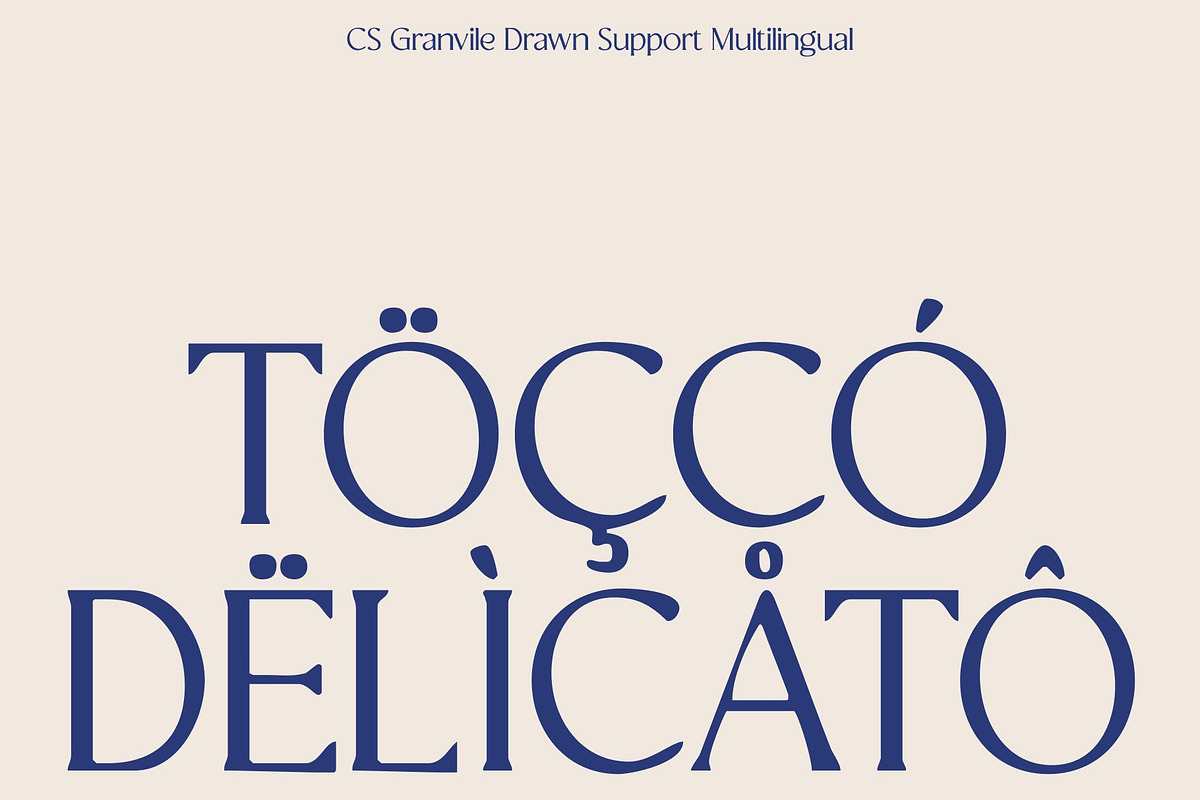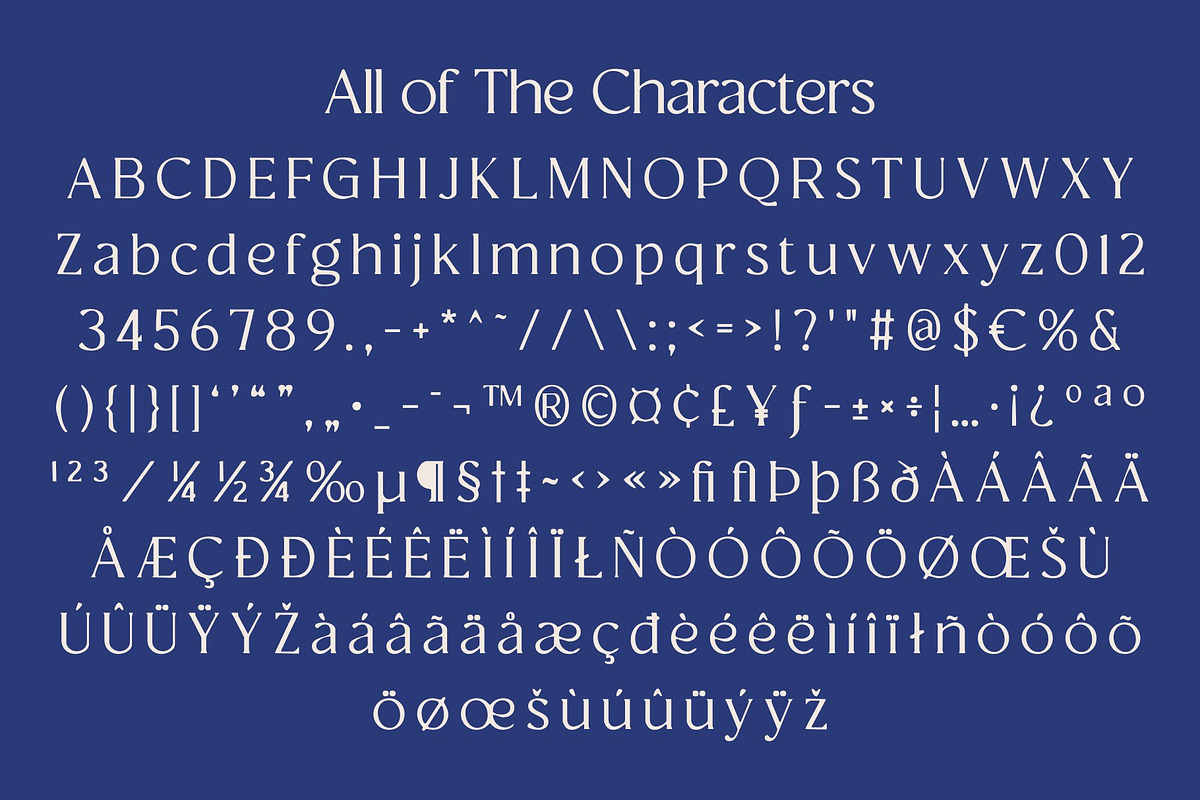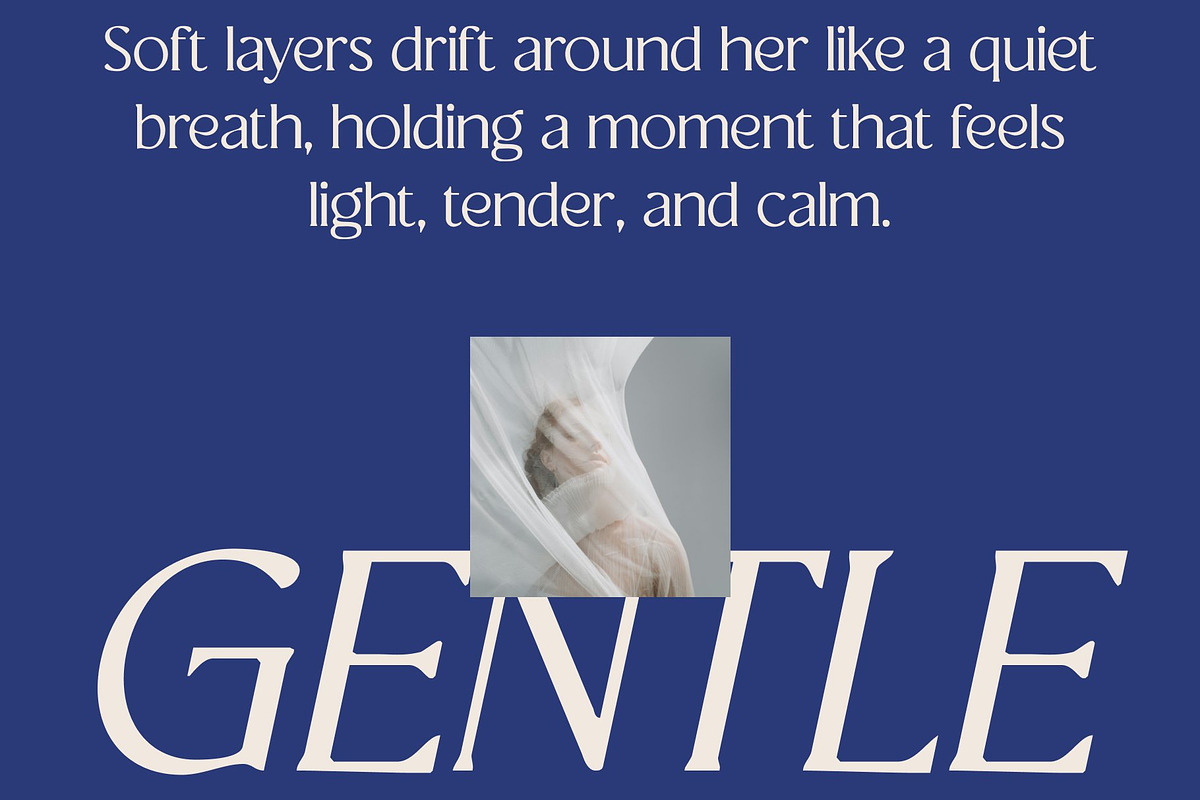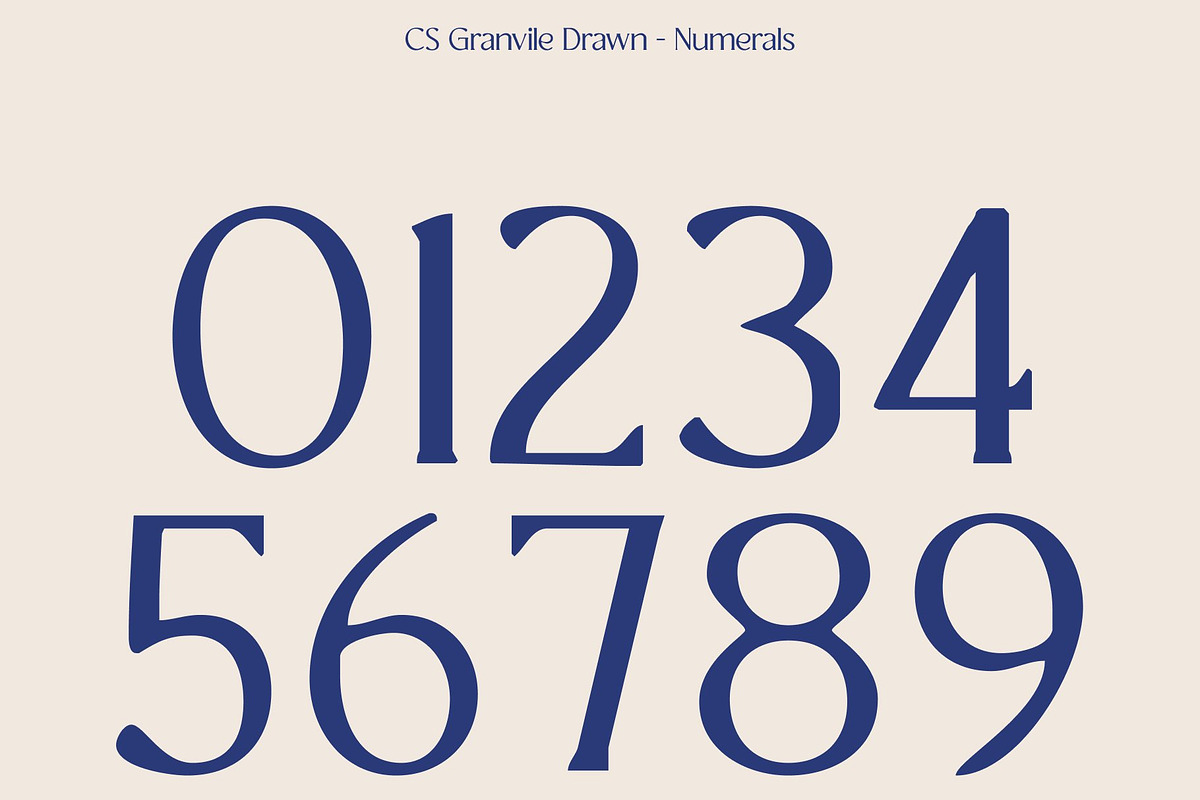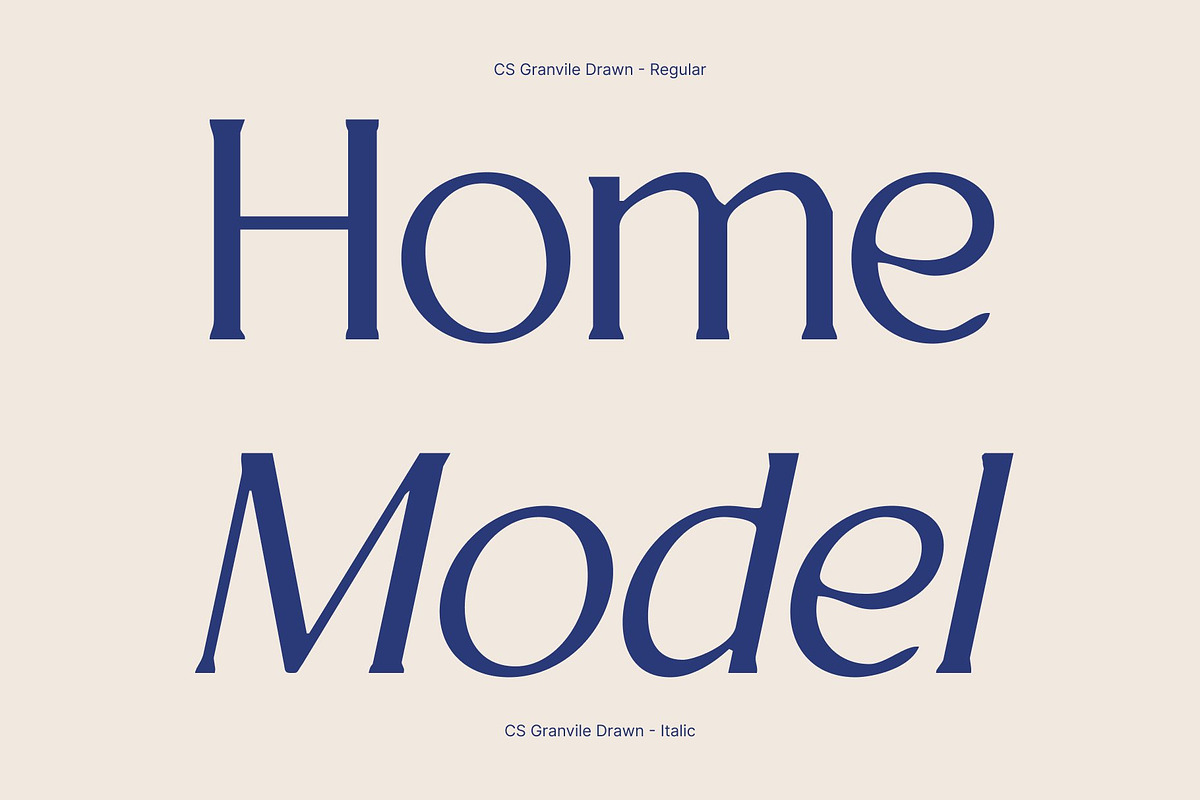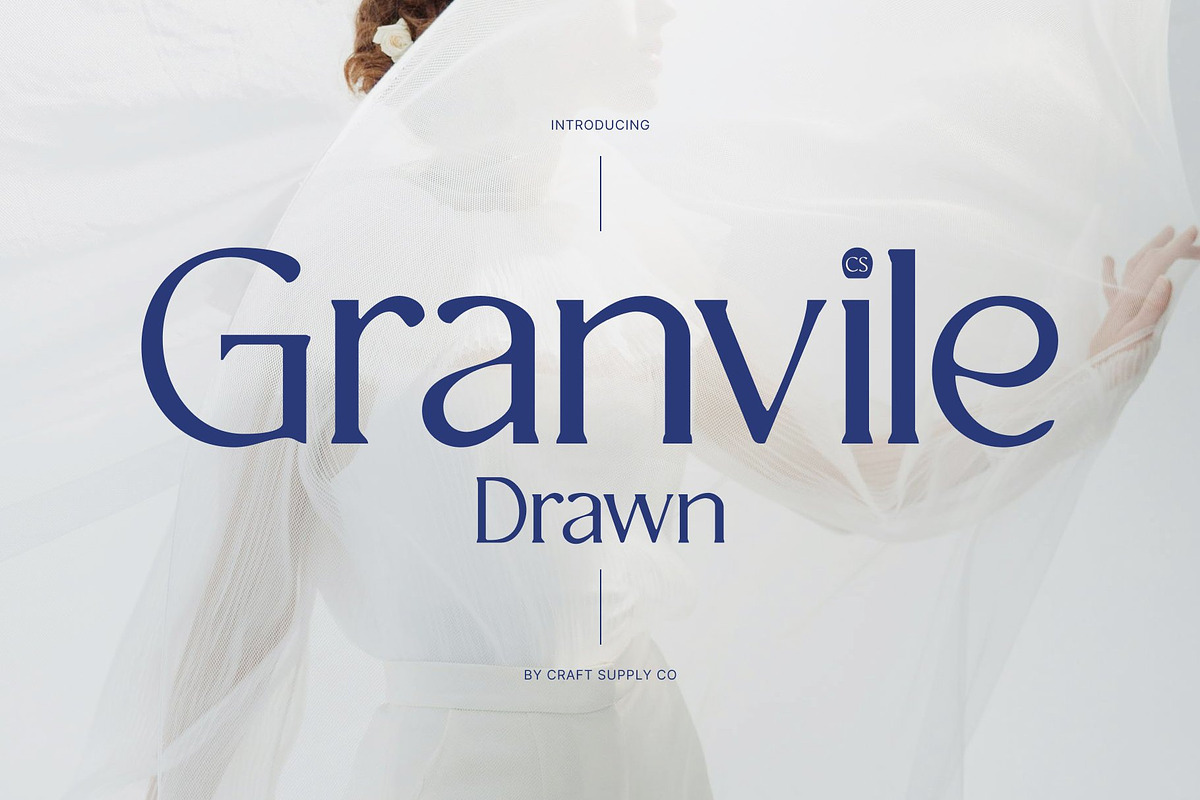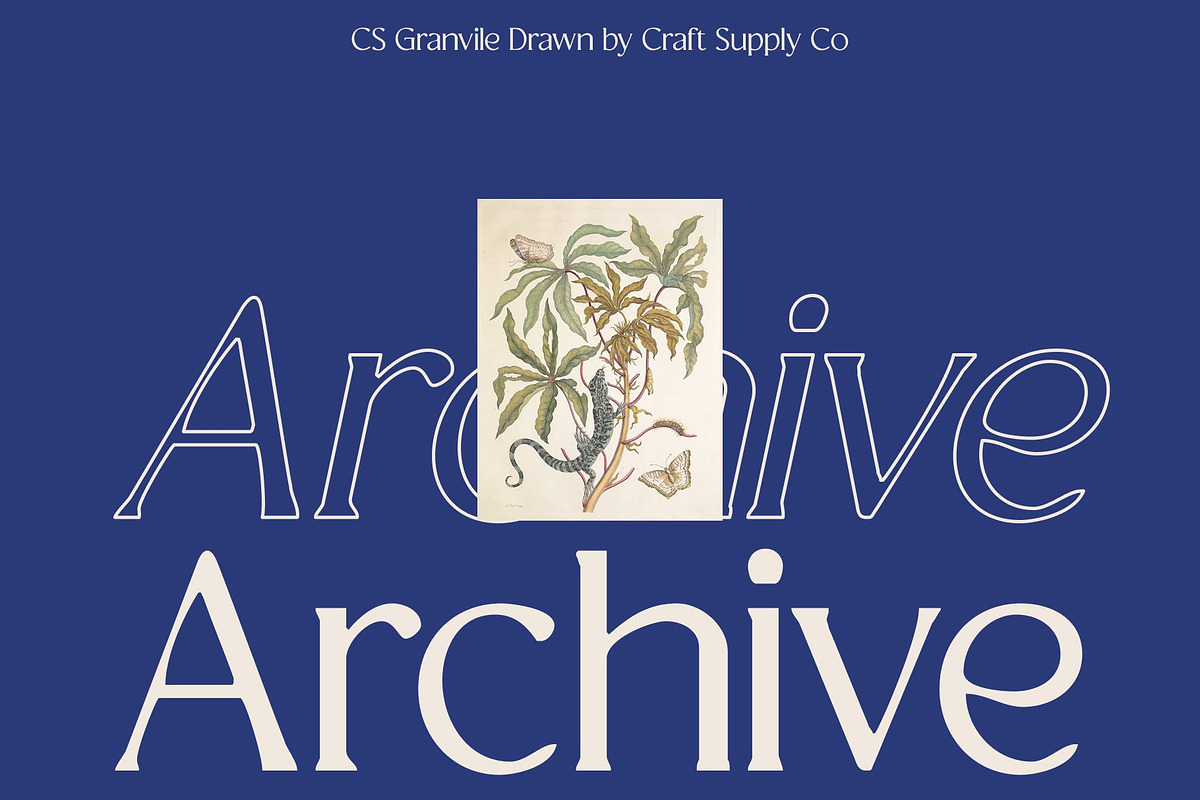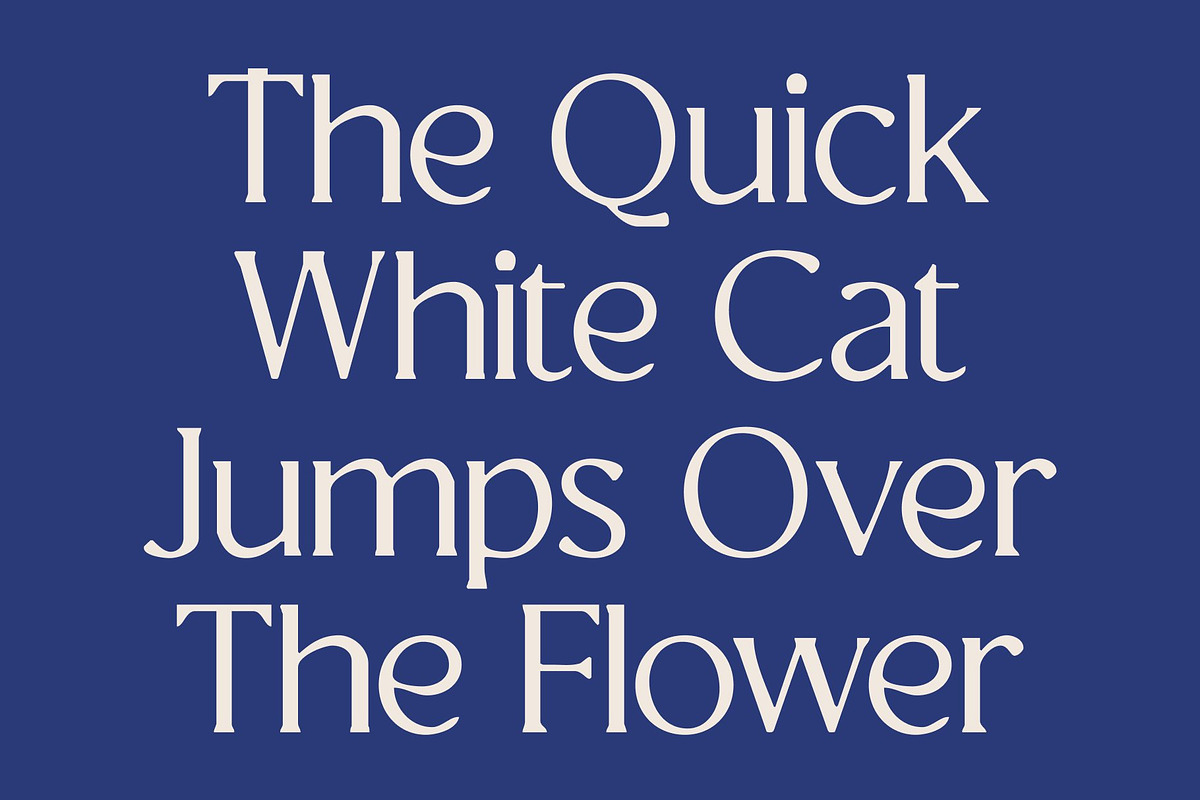
CS Granvile Drawn
CS Granvile Drawn – Classic Elegance with Artistic Flair
Timeless Serif with Hand-Drawn Sophistication This is a luxurious serif font that combines refined classical elegance with the charm of hand-drawn detailing. Each letter carries subtle texture and drawn irregularities, giving the font a unique personality while maintaining timeless sophistication. The artistic drawn effect elevates its elegance, creating a distinctive, handcrafted appeal for modern and premium designs.
Refined Curves for a Distinctive Presence The carefully shaped curves and subtle variations in stroke add visual depth and tactile interest. Its refined proportions provide balance and poise, making text feel both graceful and authoritative. This combination of classical structure and hand-crafted texture ensures a font that commands attention without losing warmth or charm.
Perfect for Luxury and Editorial Projects Ideal for fashion magazines, high-end branding, premium packaging, and editorial layouts, this font exudes exclusivity and elegance. Its artistic details bring sophistication and subtle personality, enhancing logos, headlines, and creative compositions with a refined handcrafted touch.
A Serif That Blends Tradition with Creativity By fusing classical serif forms with expressive drawn textures, this font embodies timeless beauty and contemporary artistry. This font delivers a versatile, polished aesthetic perfect for designers seeking elegance, craftsmanship, and a unique, artistic character in every project.